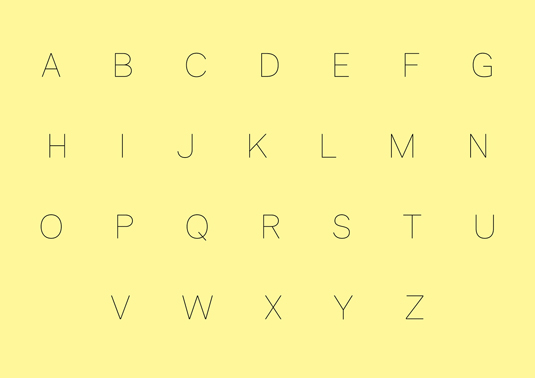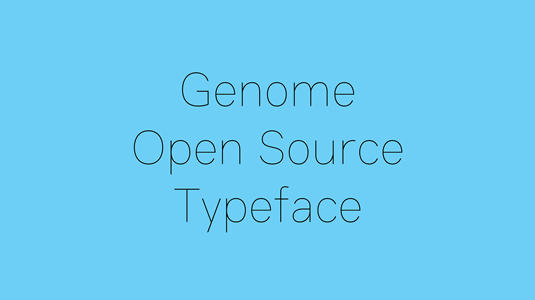
Font of the day: Genome
Genome by Alfredo Marco Pradil
Digital craftsman Alfredo Marco Pradil is the man behind today's font of choice, Genome. "Genome is a clean typeface with proportions for increased readability on screen," he comments. "This typeface is open source and free to use for personal and commercial projects. Support Genome's further development with a simple 'appreciate' and download."